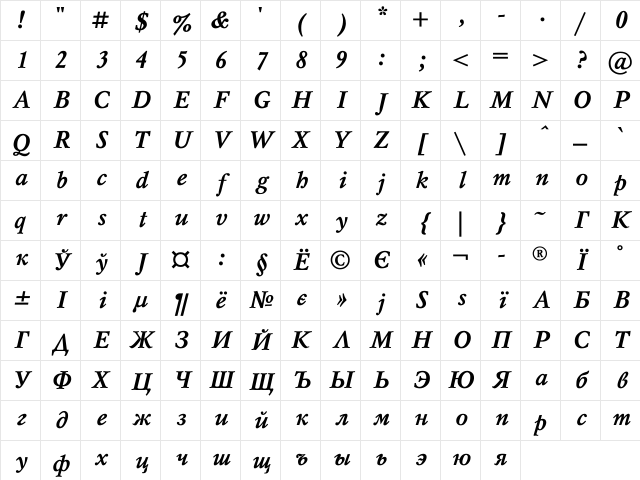
Mysl Bold Italic
Complete Mysl Bold Italic glyph index. Displaying only characters natively supported by Mysl Bold Italic font.
Design Context for Mysl
Mysl is a composed and adaptable typeface that performs quietly and consistently across a wide range of design contexts. The slanted form adds forward momentum and visual energy. Its bold stroke weight gives it real presence on the page.
Pro Tip: Use Mysl for emphasis, pull quotes, and subheadings where its slanted energy can add rhythm to the layout.